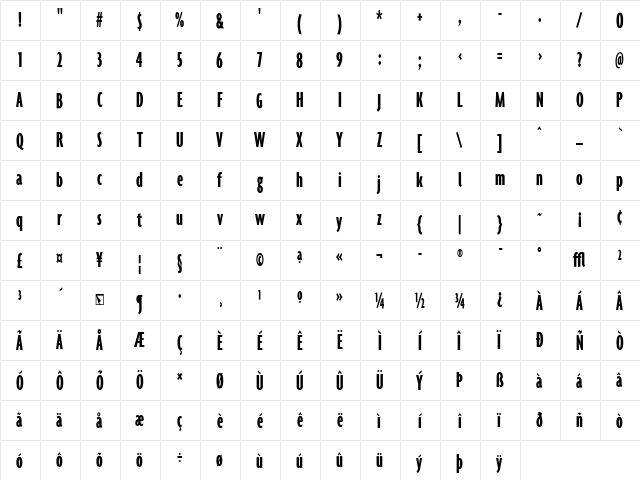
Agenda BoldUltraCondensed
| Style | BoldUltraCondensed |
| Foundry | Copr. Greg Thompson. Agenda is a Trademark of Greg Thompson. Produced by The Font Bureau, Inc |
Design Context for Agenda Typeface
Agenda is a composed and adaptable typeface that performs quietly and consistently across a wide range of design contexts. The heavy weight commands attention and anchors typographic hierarchies. Its narrow stance lets it pack a punch even in space-constrained designs.